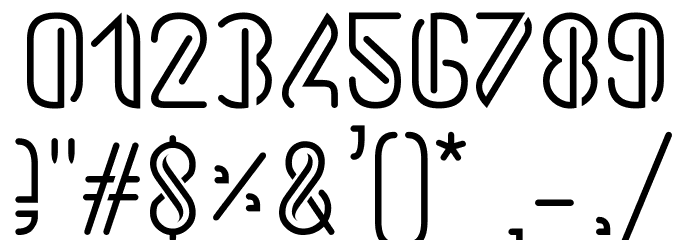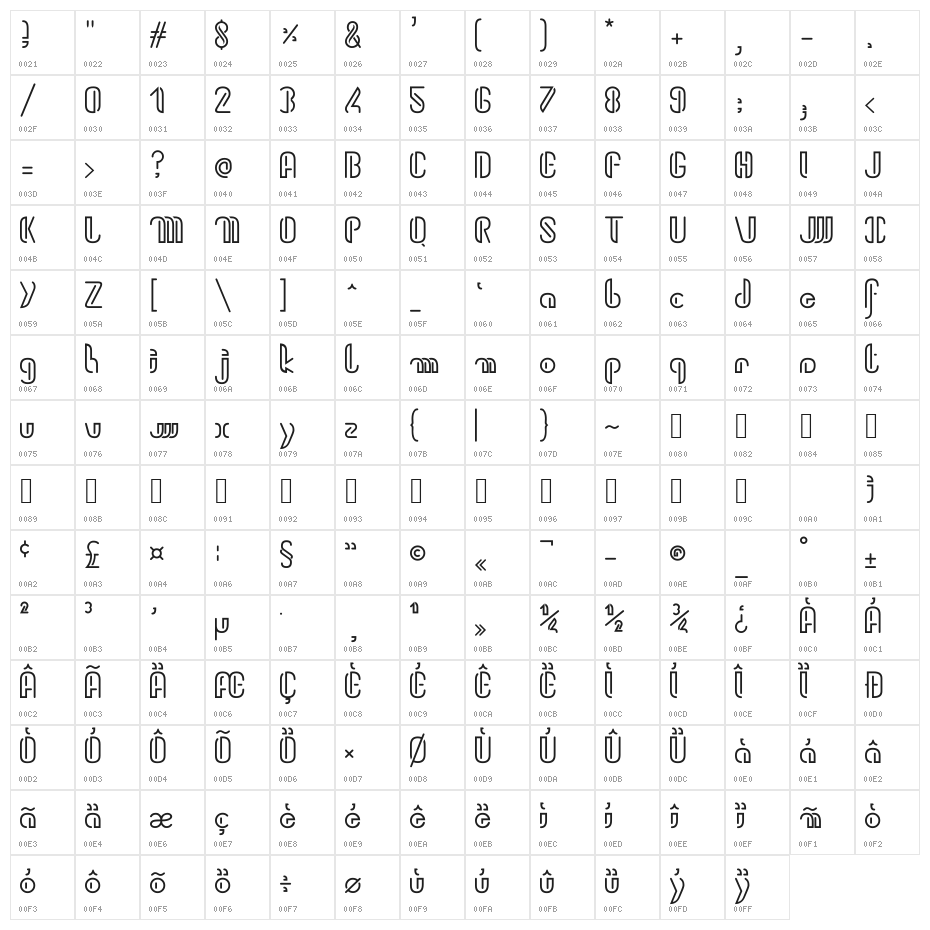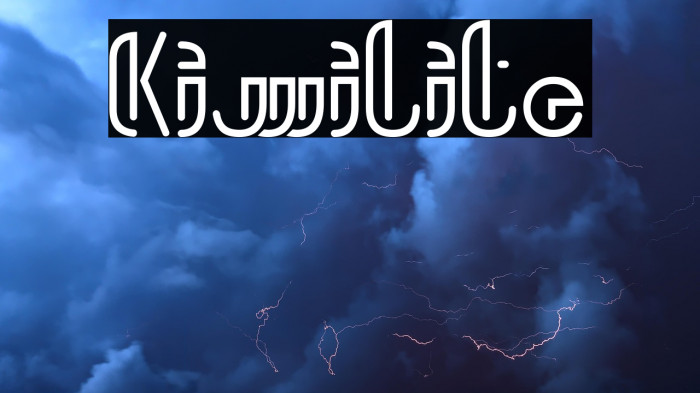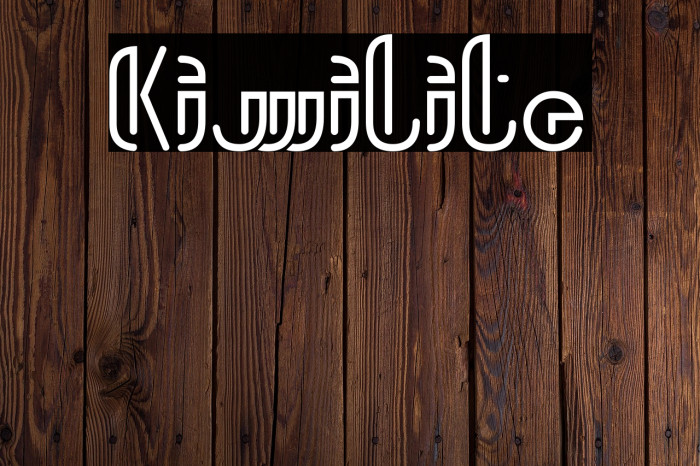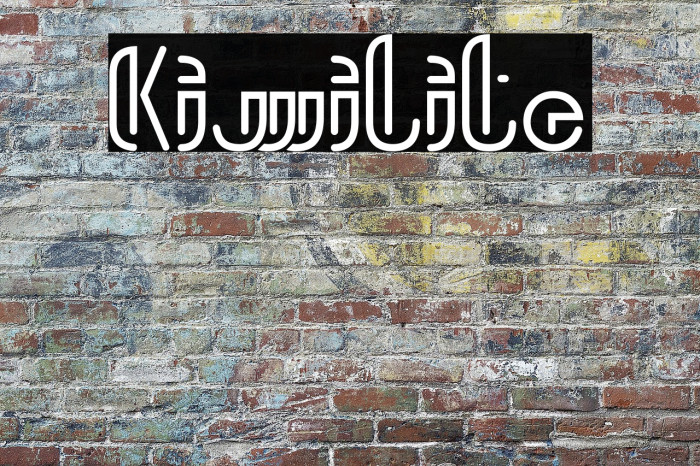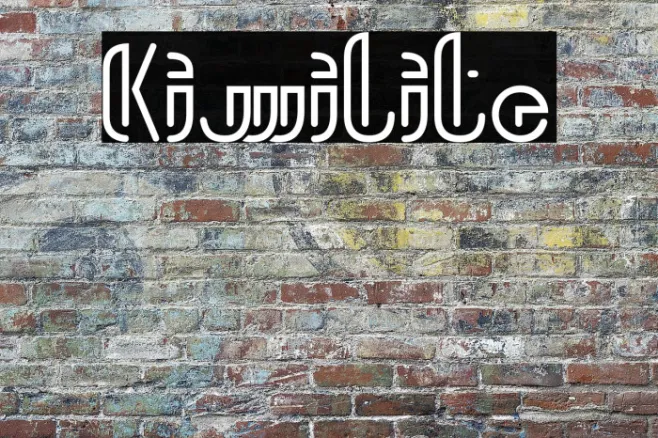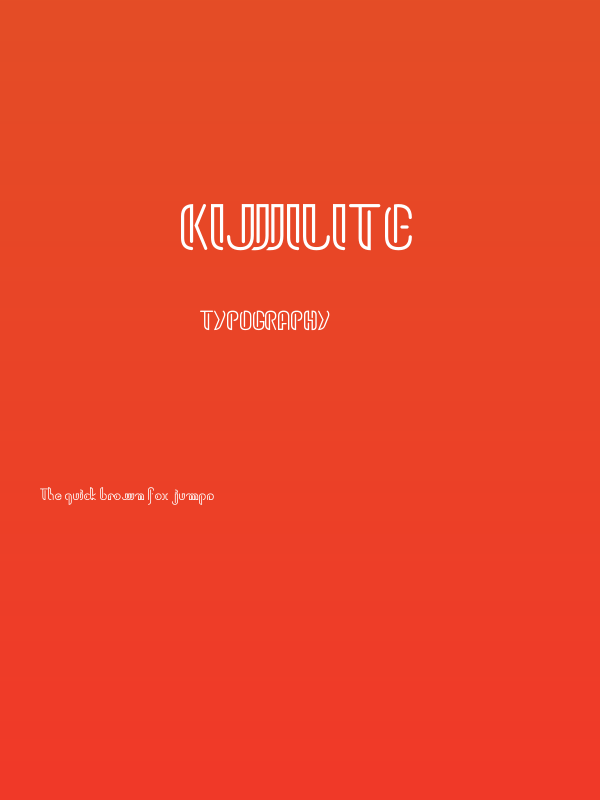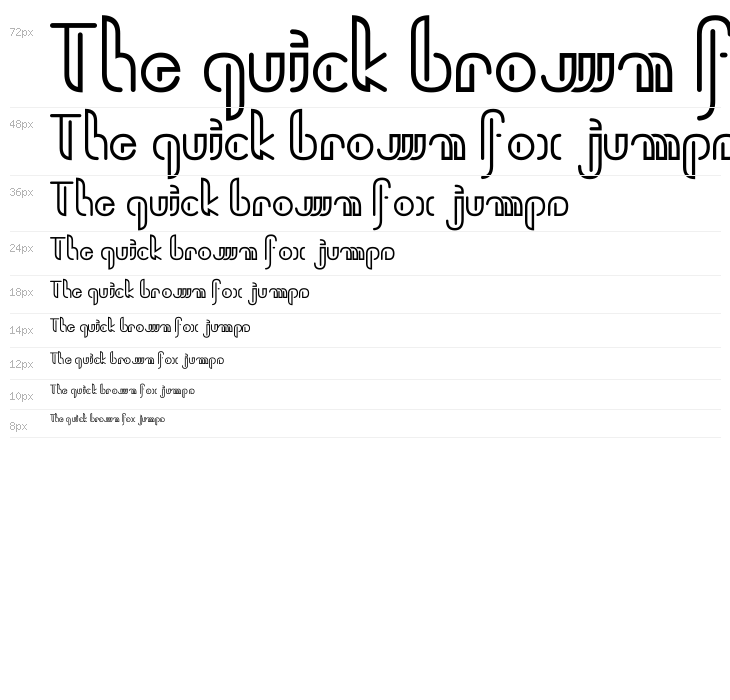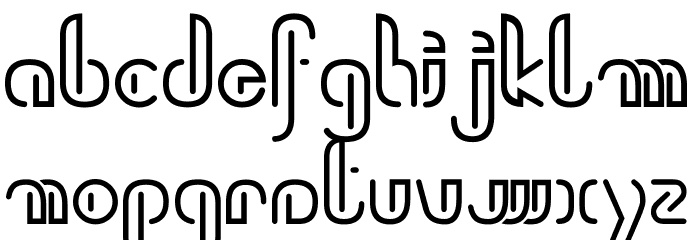
Kiwilite Font
Kiwilite Description
This font features a unique and modern design with a geometric and futuristic feel. The characters are composed of bold, rounded lines with consistent thickness, creating a sense of uniformity and balance. The uppercase letters are particularly striking, with a strong presence and a slightly condensed form. The lowercase letters maintain the same stylistic approach, ensuring readability while adding a touch of elegance. Numbers and special characters are crafted with the same attention to detail, making them stand out while remaining cohesive with the overall design. The font's distinct style makes it ideal for creative and contemporary projects.